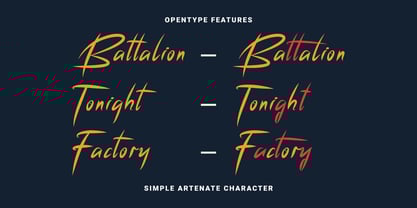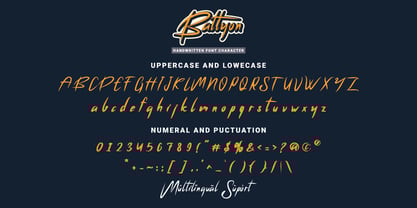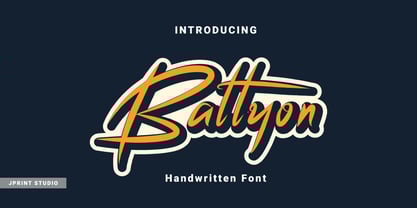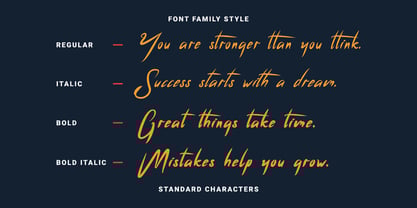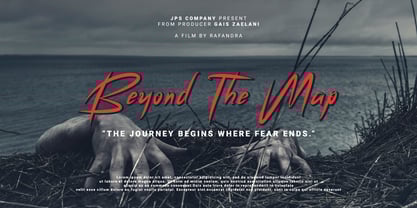
Battyon
by JprintStudio
The Battyon Font Family was designed by Gais Zaelani and published by JprintStudio. Battyon contains 4 styles and family package options.
Experience the allure of individuality with Battyon, a uniquely handwritten font that radiates inherent sophistication and grace. This extraordinary typeface raises the bar on logo development, enhancing social media content, and reinventing enthralling movie and book titles to new heights. The Battyon font magnifies every design, transforming it into a remarkable masterpiece. Amplify your artistic flair through creating dynamic and compelling compositions lavished with the distinctiveness of the Battyon font.
Designers: Gais Zaelani
Publisher: JprintStudio
Foundry: JprintStudio
Design Owner: JprintStudio